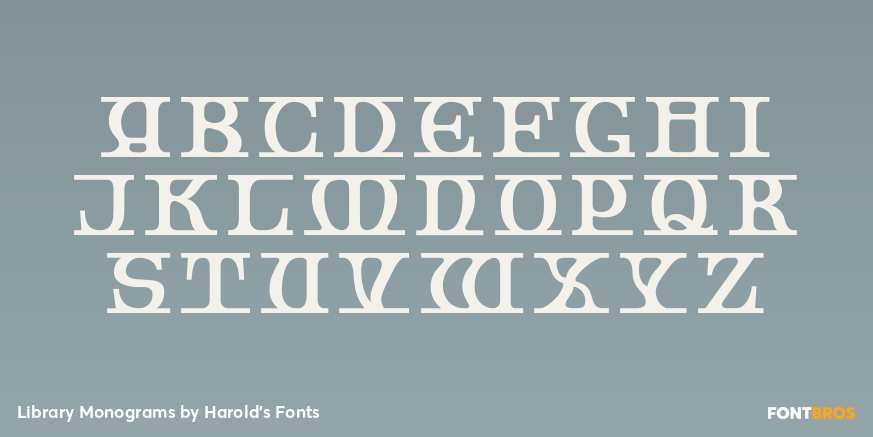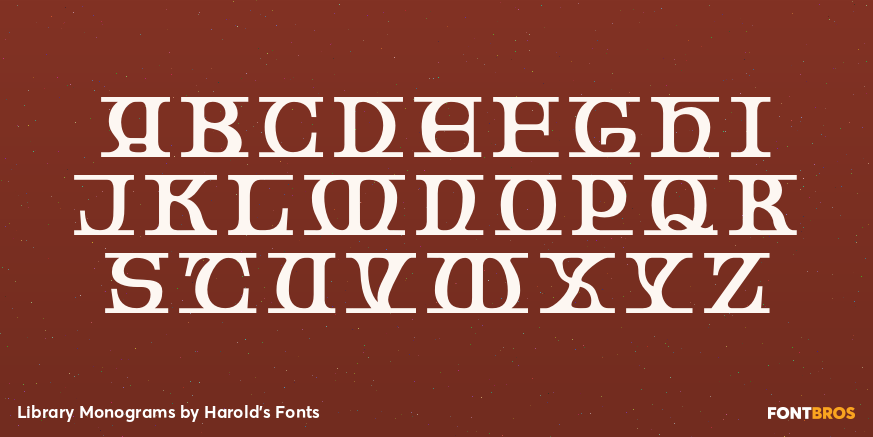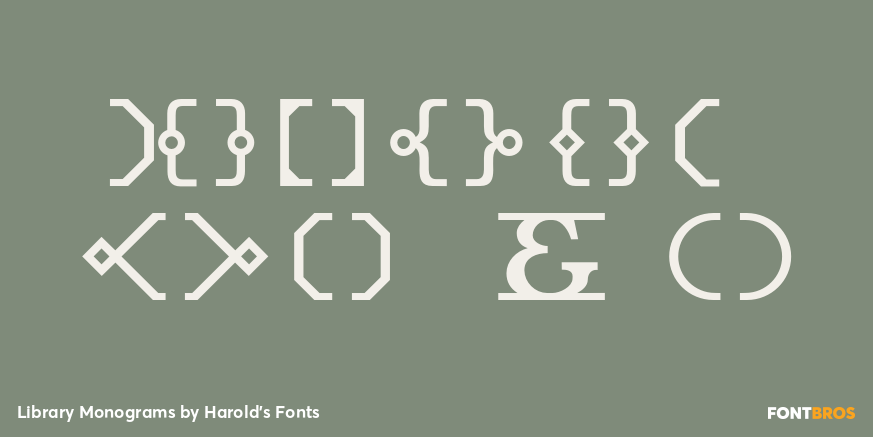
Library Monograms
Font Family by Harold's Fonts
Library Monograms give your custom monogram the warm, cozy feeling of old leather-bound books with gold-stamped titles and marbled endpapers. Inspired by lettering in the "Collegiate Gothic" style by the architect Robert Louis Trudeau, each monogram is neatly contained within its own cartouche, with Black or White letters, and finished with your choice of endpieces. There are even some alternate letterforms for more fun.